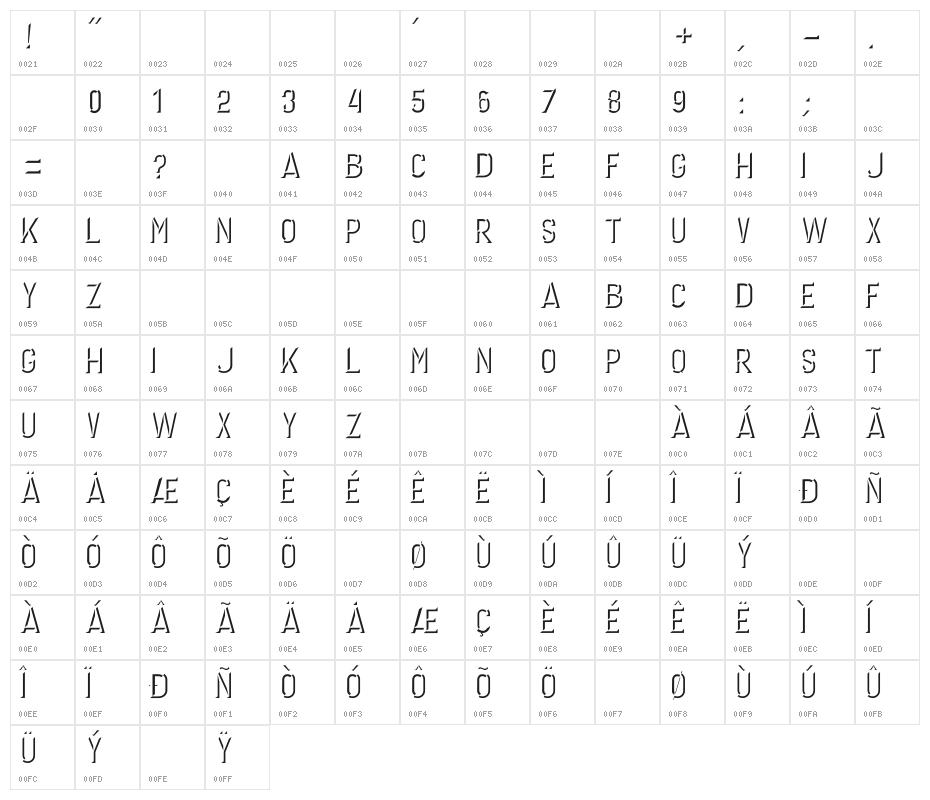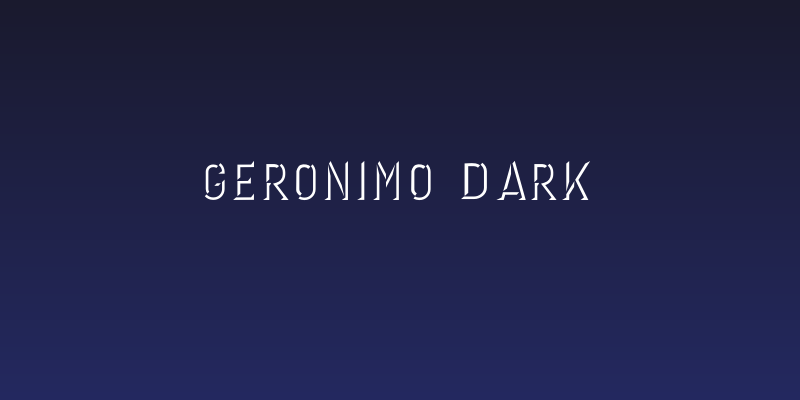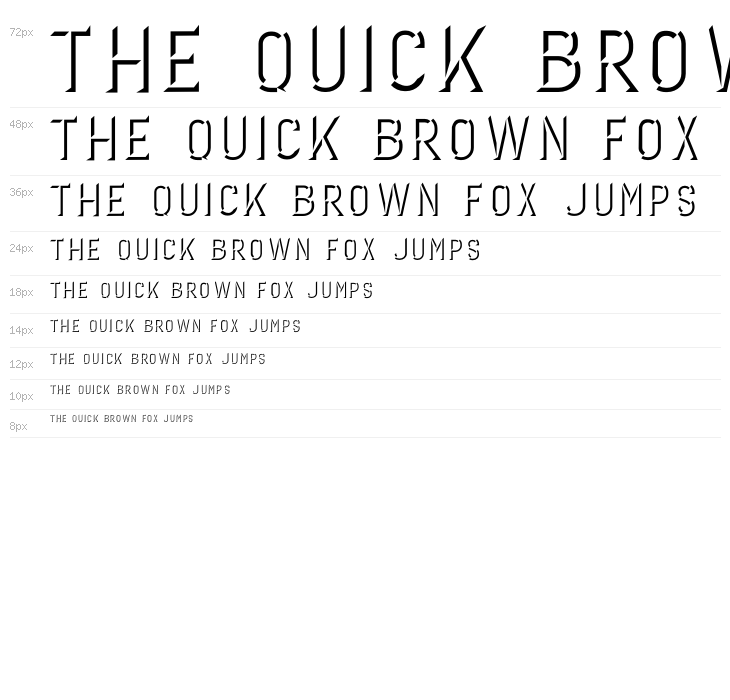
GERONIMO DARK Font
GERONIMO DARK Description
This font features a bold, geometric design with a distinct stencil-like appearance. The characters are constructed with sharp angles and clean lines, creating a modern and industrial feel. The uppercase letters are uniform in height, while the lowercase letters maintain a consistent style that complements the uppercase. The numerals are equally bold and follow the same geometric pattern, ensuring readability and visual impact. The special characters are designed to match the overall aesthetic, making this font versatile for various design needs. Its unique cut-out sections add an element of intrigue and creativity, making it suitable for eye-catching designs.